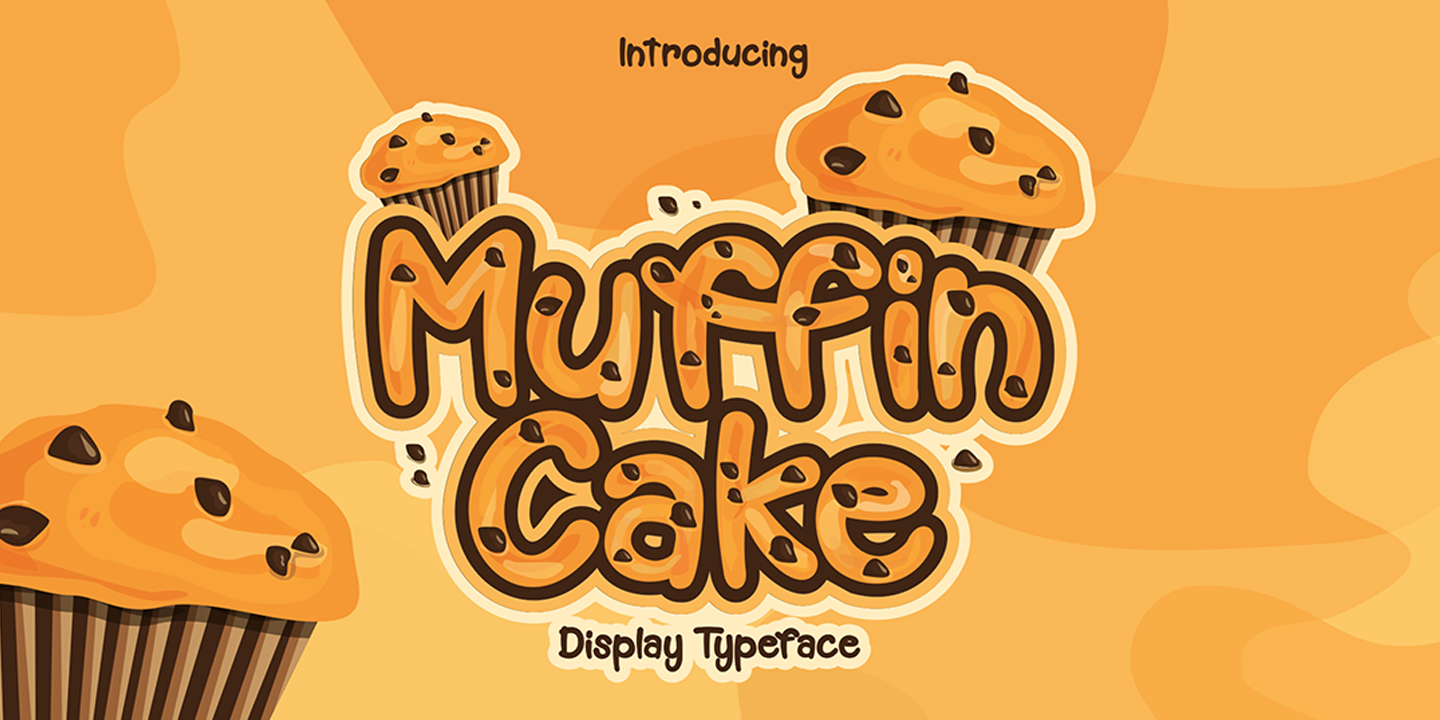
Muffin Cake Font is a delightfully charming typeface that brings a whimsical and handcrafted feel to any design, perfect for projects that aim for a sweet and approachable aesthetic. Imagine it adorning labels for homemade baked goods, adding a playful touch to children’s party invitations, or creating friendly headlines for cooking blogs. Its endearing, rounded edges and slightly imperfect character also make it an excellent choice for crafting unique greeting cards, designing cheerful social media graphics, and developing delightful branding for small cafes or craft shops. Whether you’re aiming for a cozy, fun, or authentically personal aesthetic, Muffin Cake Font offers a heartwarming and inviting visual presence.
What makes Muffin Cake Font truly exciting is its irresistible charm and warm, inviting personality. It genuinely feels like it was lovingly hand-drawn, imbuing your text with a sense of authenticity and a touch of joyful simplicity. This font doesn't just convey words; it evokes a feeling of comfort and happiness, making it highly effective for brands and projects that want to create a friendly and approachable connection with their audience. Muffin Cake Font stands out by offering a unique blend of casual elegance and playful innocence, making it a fantastic choice for any design where you want to evoke a sense of warmth and delightful charm.
The Muffin Cake Font family typically focuses on delivering its distinctive, charming style effectively, often featuring a core set of weights and possibly stylistic alternatives that enhance its handcrafted appeal. While it may not have the extensive weight range of a more formal text font, you can often find a standard Regular weight, sometimes complemented by a slightly bolder version for emphasis or a more delicate variant for lighter touches. Some versions might also include fun ligatures or alternate characters that add to its whimsical nature, providing more creative options for designers. For anyone looking for Muffin Cake Font Free Download, exploring these delightful nuances will help you bake up truly unique and charming designs.